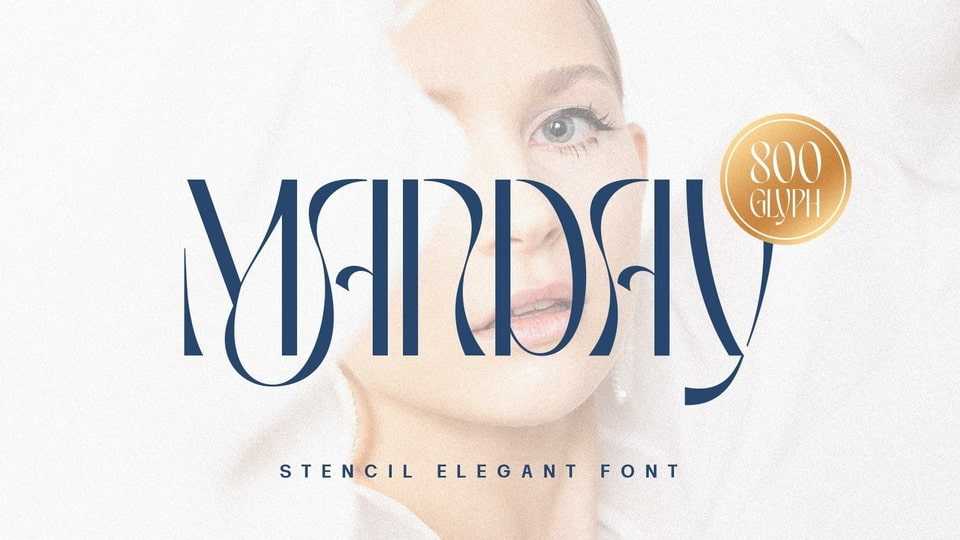
Download Manday font, an elegant and attractive stencil typeface for a modern design. Manday font is very worthy of being a font collection on your computer for projects with a unique and charming elegant concept.